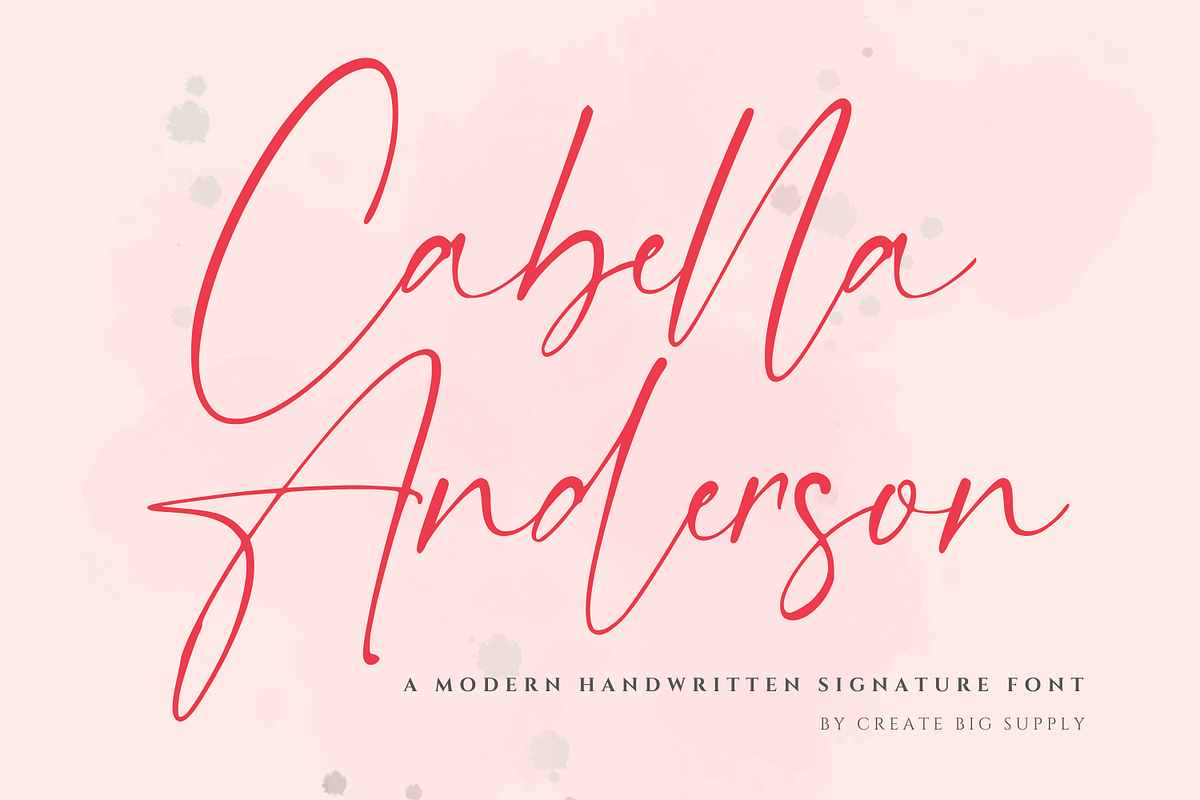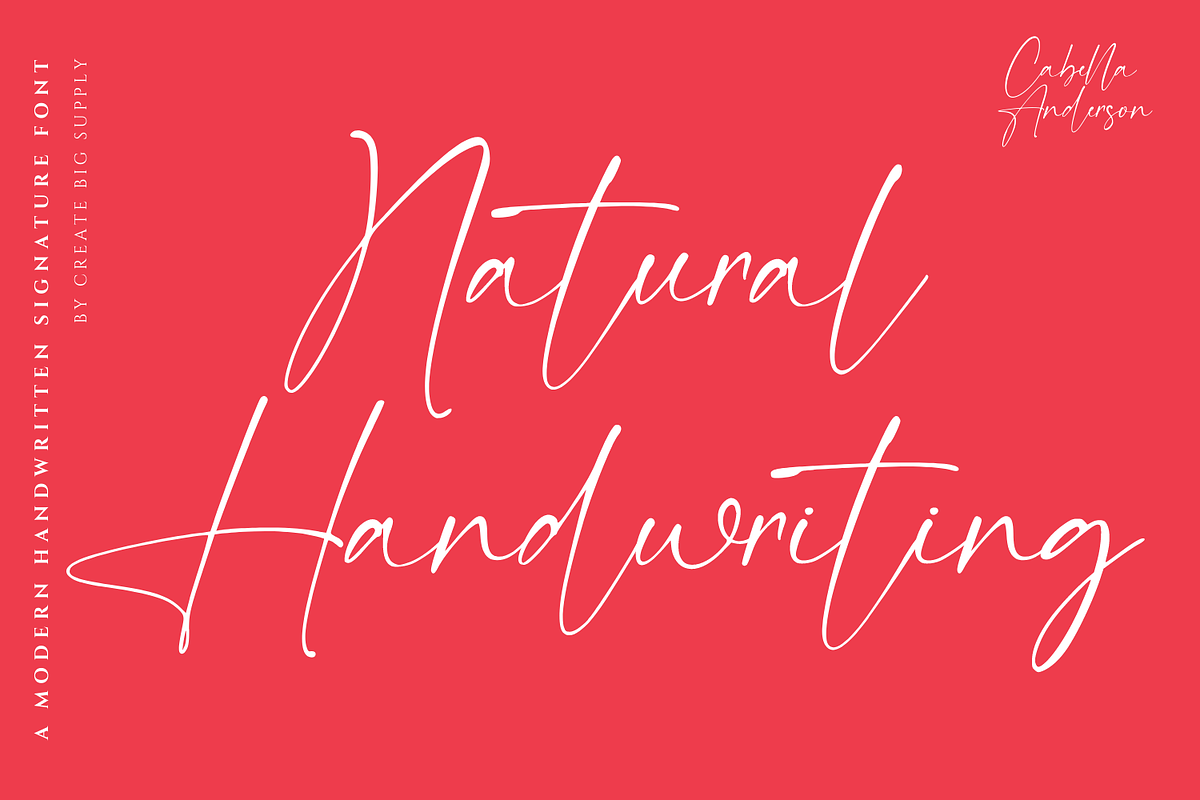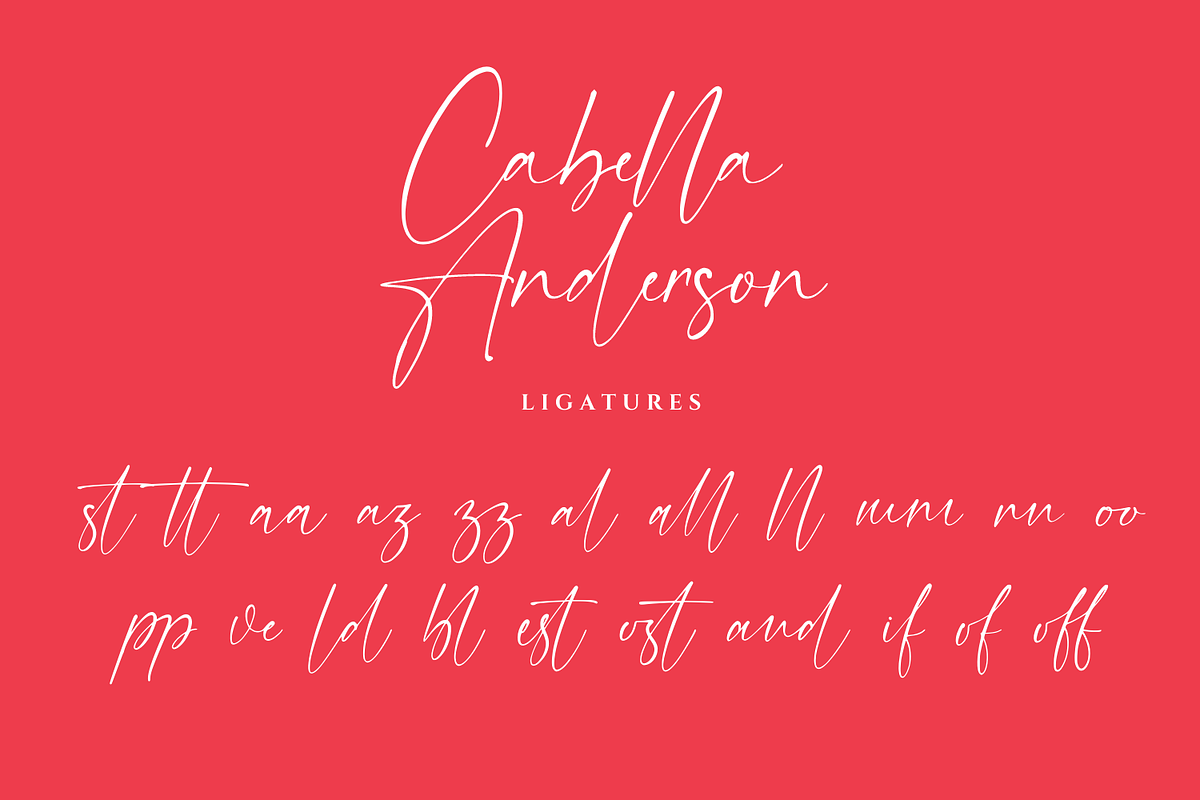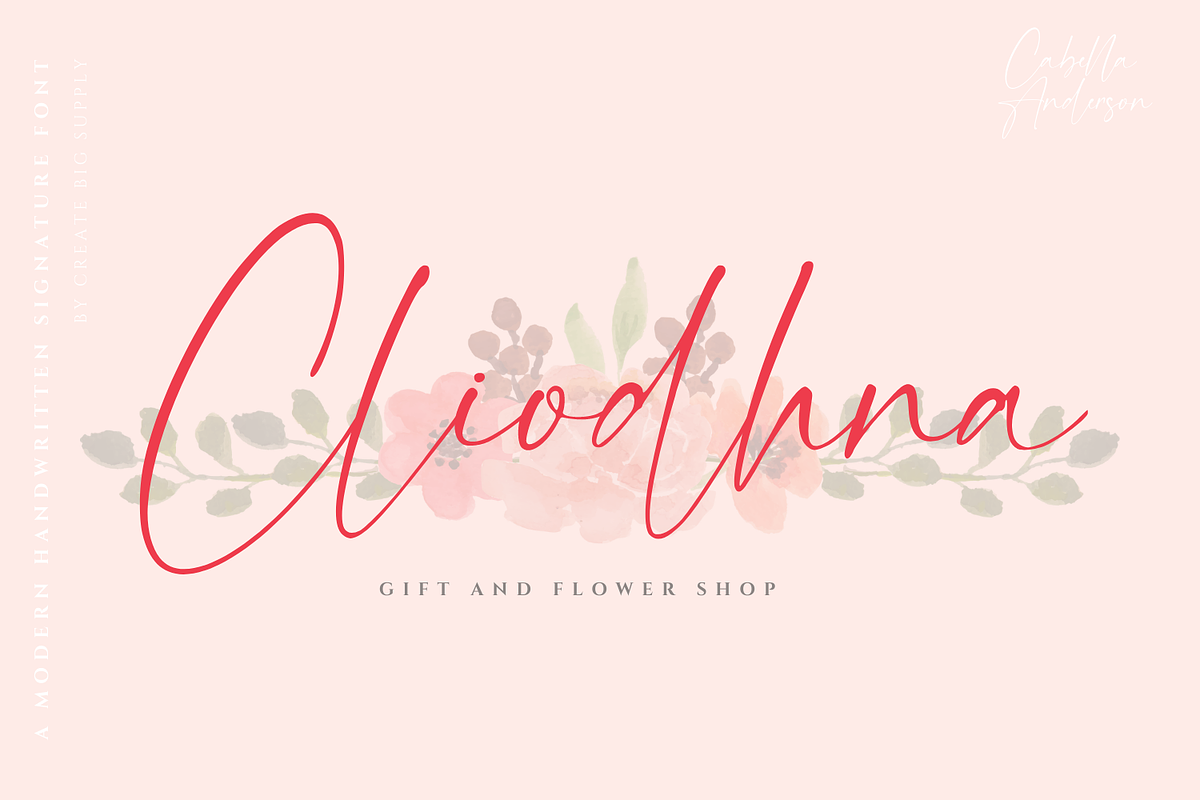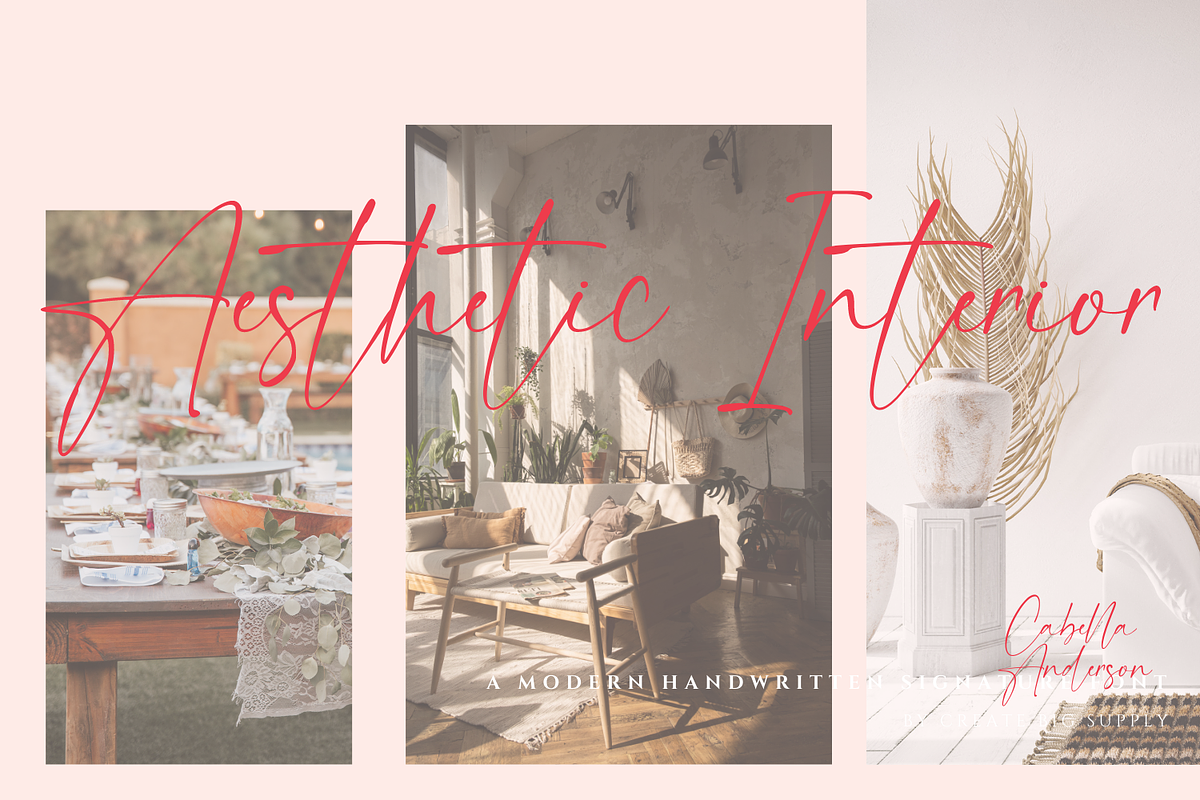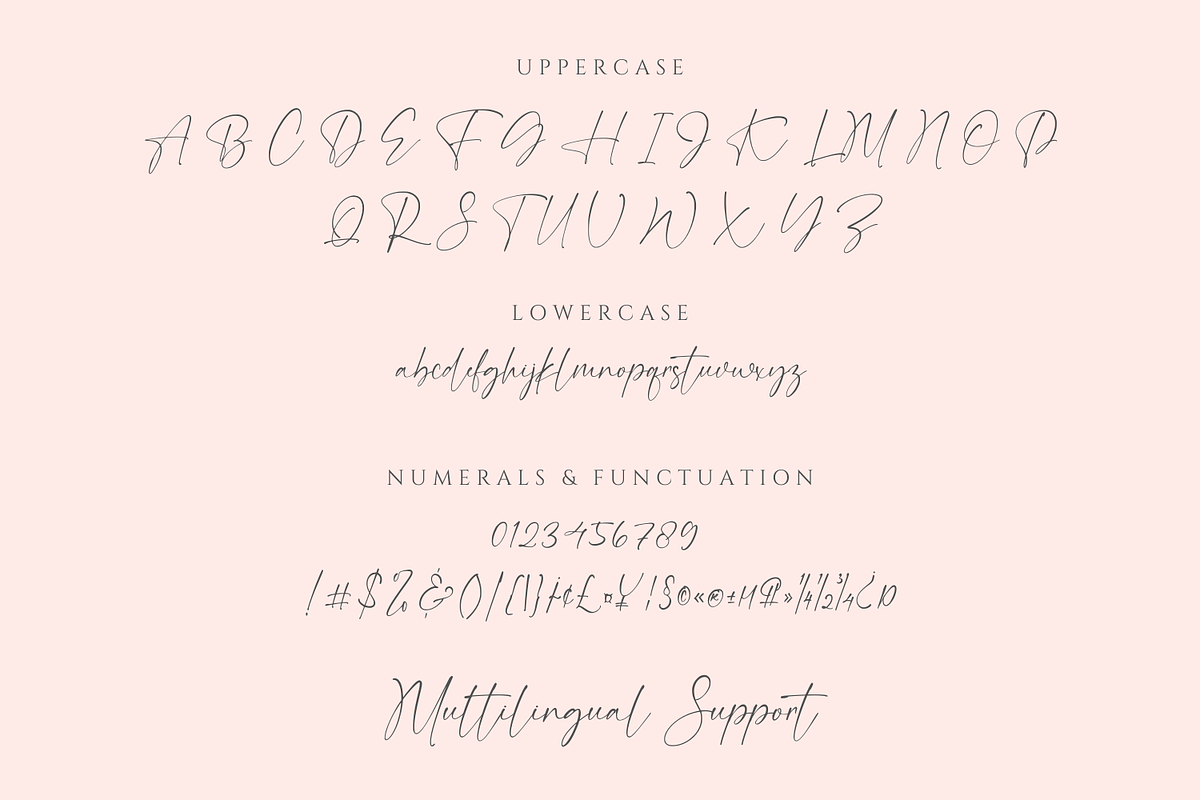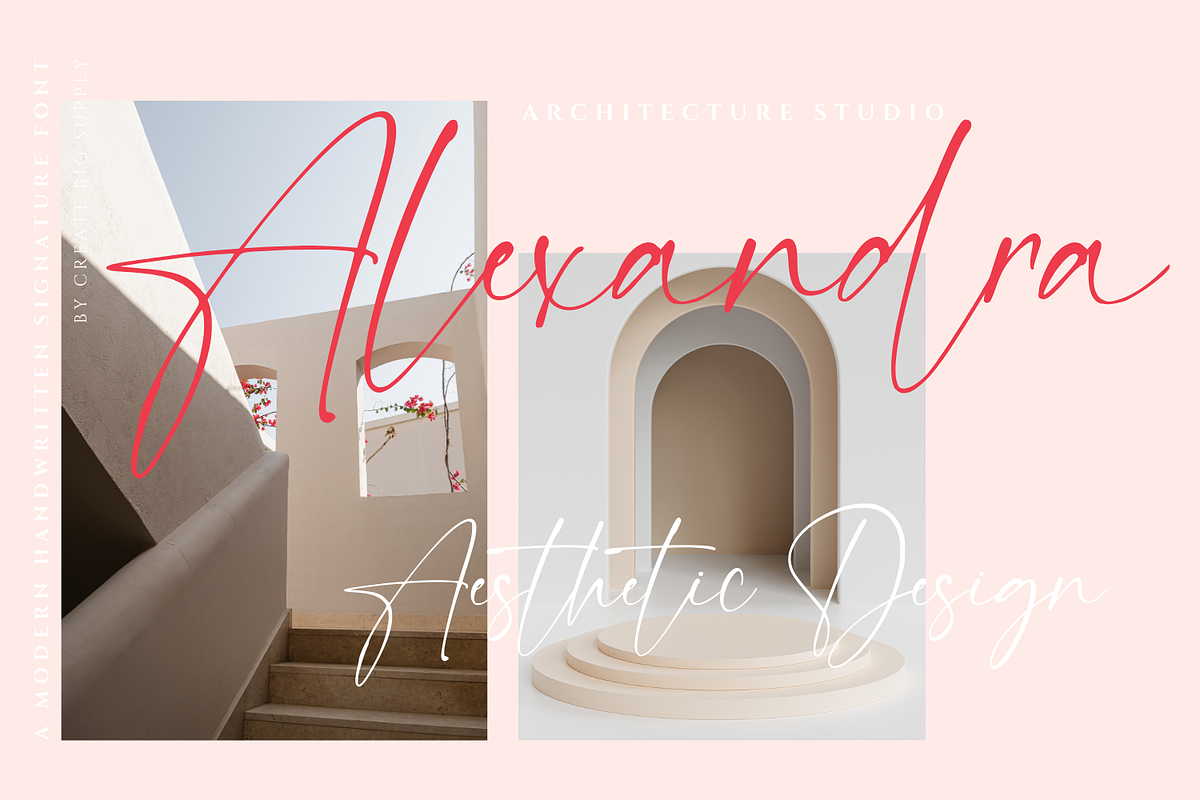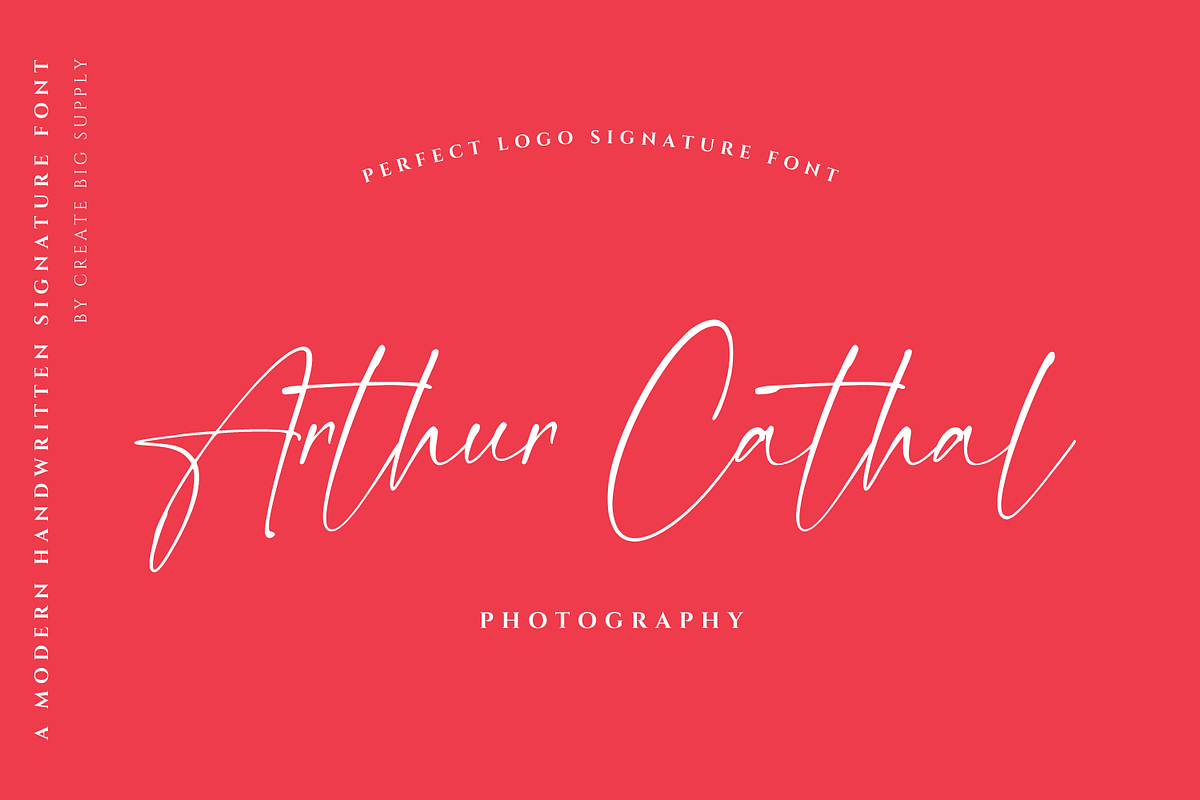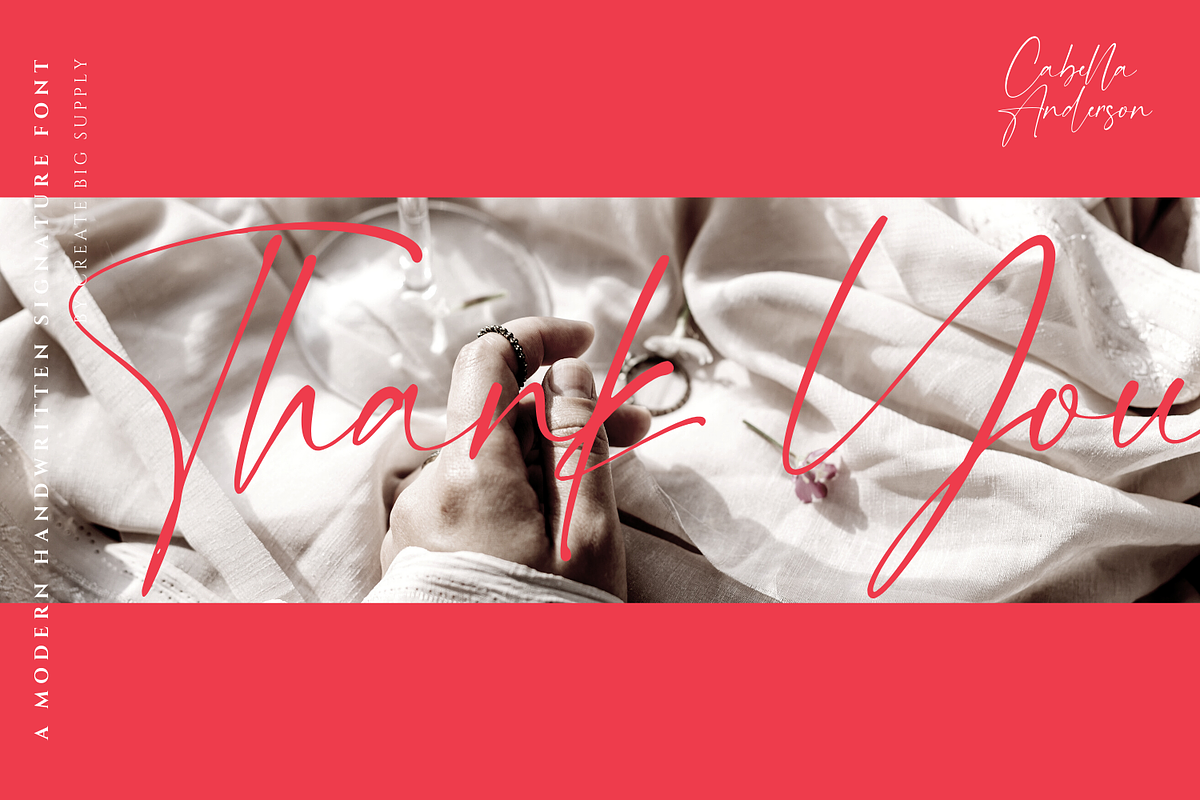
Cabella Anderson - Elegant Signature
Cabella Anderson is an elegant signature handwriting font that adds a personal touch to your designs. With its graceful strokes and stylish letterforms, this font captures the essence of sophisticated handwritten signatures. Create a distinctive and memorable impression with Cabella Anderson on your logos, branding materials, invitations, and more. The font includes both uppercase and lowercase letters, as well as numbers and punctuations, providing versatility for your typographic compositions. It also offers multilingual support, enabling seamless communication in various languages. With PUA encoding, accessing special characters and symbols is effortless. Embrace the charm of Cabella Anderson and elevate your designs with a unique handwritten feel.